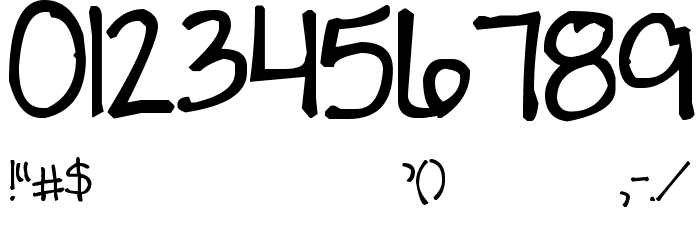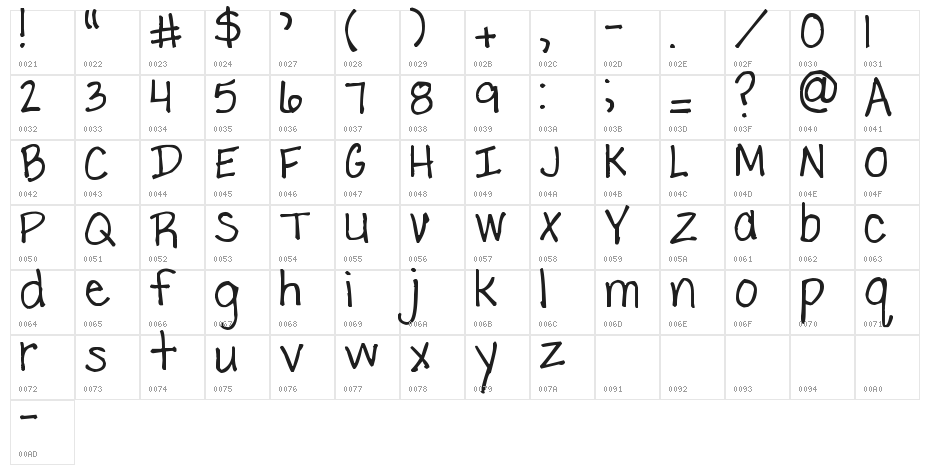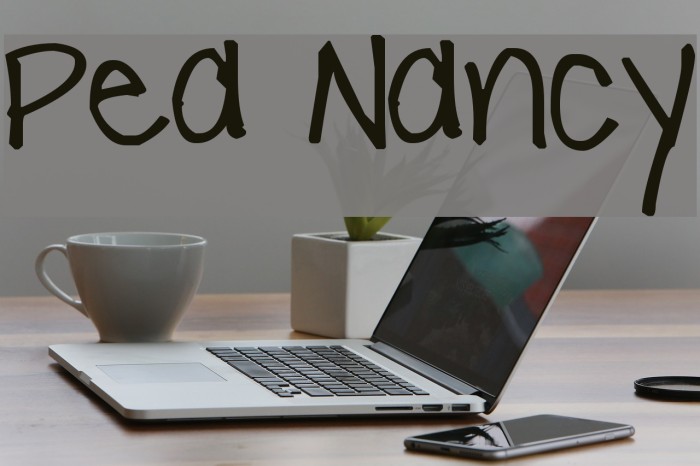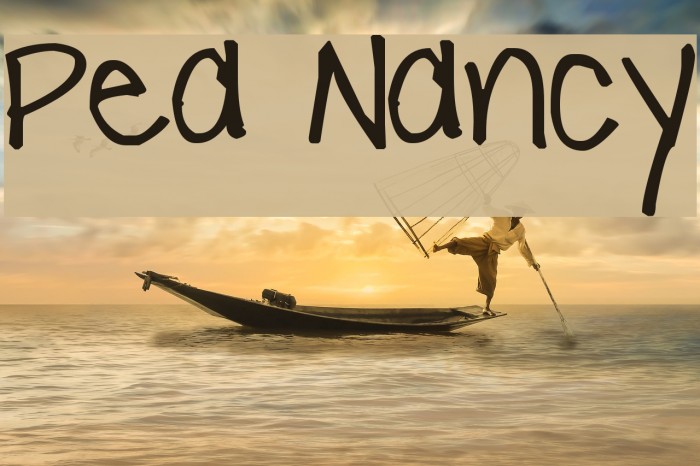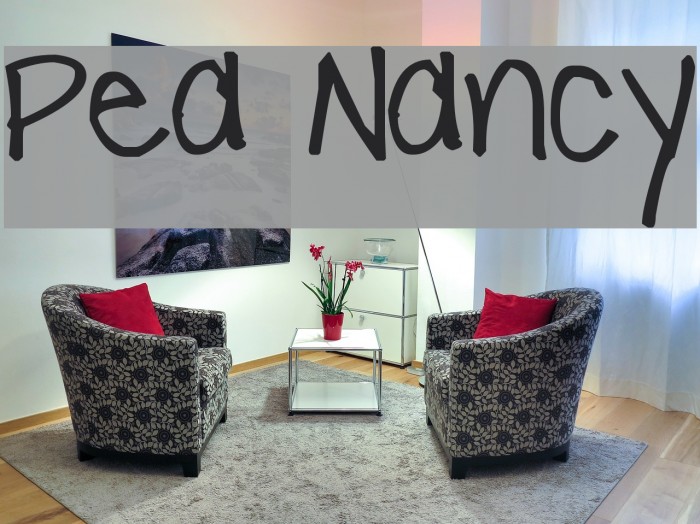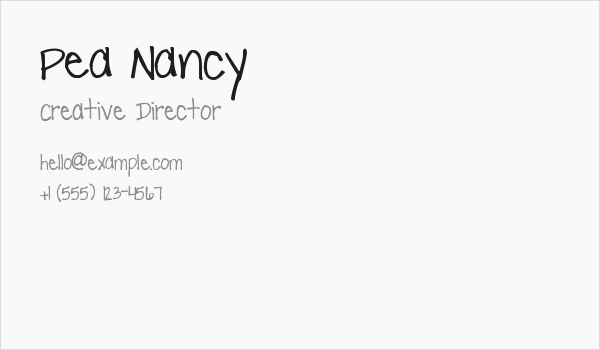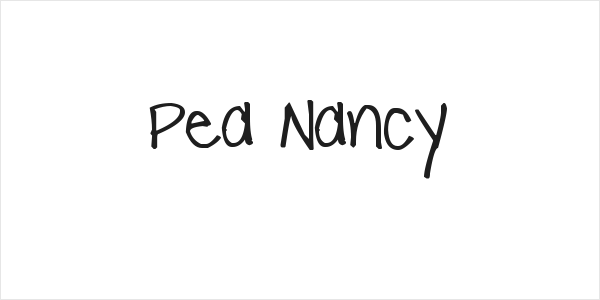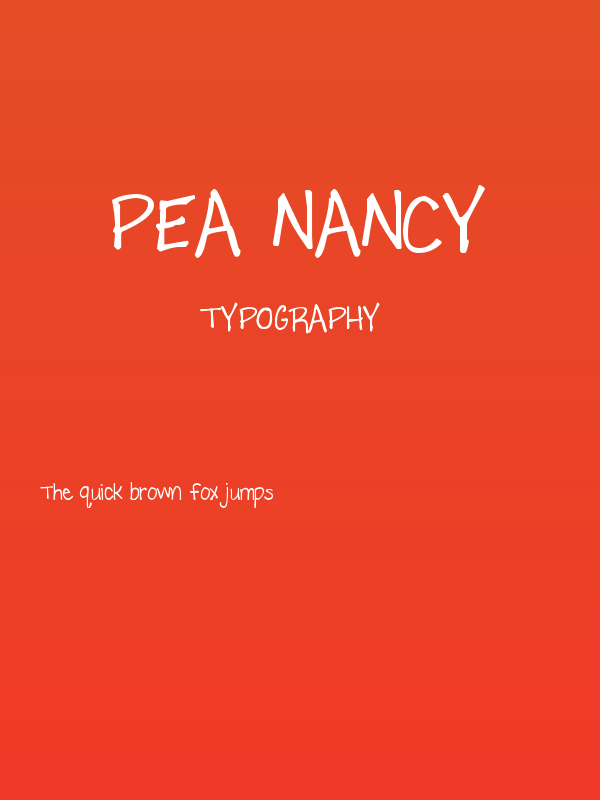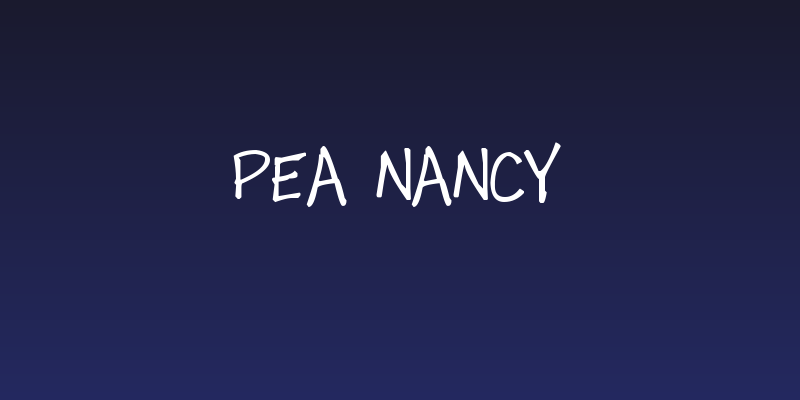
Pea Nancy Font
Pea Nancy Description
This font features a playful and casual handwritten style, characterized by its uneven strokes and slightly irregular letterforms. The uppercase letters are bold and prominent, while the lowercase letters maintain a consistent flow with a touch of whimsy. The numbers are clear and legible, matching the overall informal aesthetic. Special characters are integrated seamlessly, adding to the font's versatility. The font's organic appearance makes it suitable for projects that require a personal touch or a friendly, approachable vibe.
| Overall Style | Casual, Playful |
| Use Case | Headlines, Informal text, Personal projects |
| Proposed Projects | Ideal for greeting cards, children's books, personal blogs, and informal branding. |